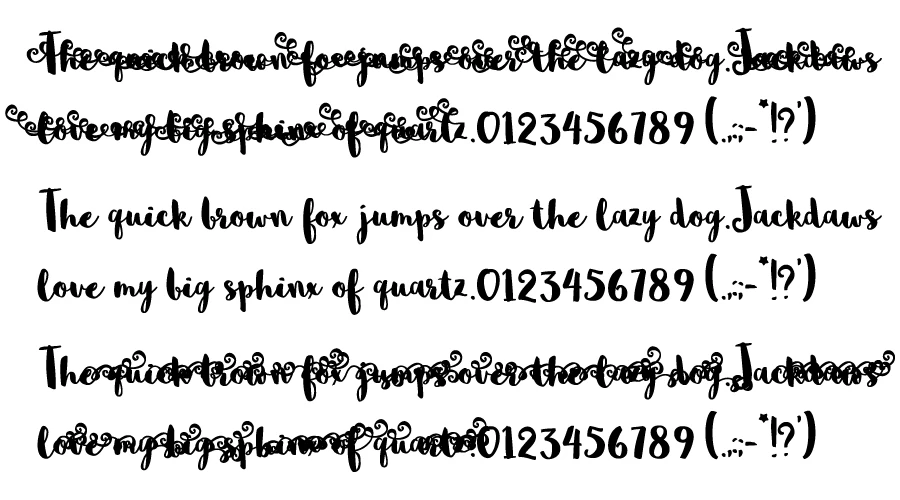
Designed by Emily Spadoni Sophia font is a hand-lettered brush script font. Emily Spadoni designed the font in 2016 but later in 2017 she updated Sophia and increased the glyphs and language support. You can use Sophia left or Right to customize your text.
Sophia font family featuring sweet, saucy, and a little shabby. The thin lines along with the typeface make Sophia more noticeable and interesting. All the letters of Sophia font-family are hand-lettered with the sweet decorative bonus.
For huge designing purposes, Such as Business cards, Logo designing Headlines, Brochures layouts, Sofia is at the top of everyone’s favorite list. Just for its typeface, the demand for Sophia fonts is seen in all areas in the current online market.
StyleScript
AuthorEmily Spadoni
• Sophia regular
• Sophia Left
• Sophia Right
What type of font is Sophia?
Ans: Sophia is a hand-lettered brush script font.